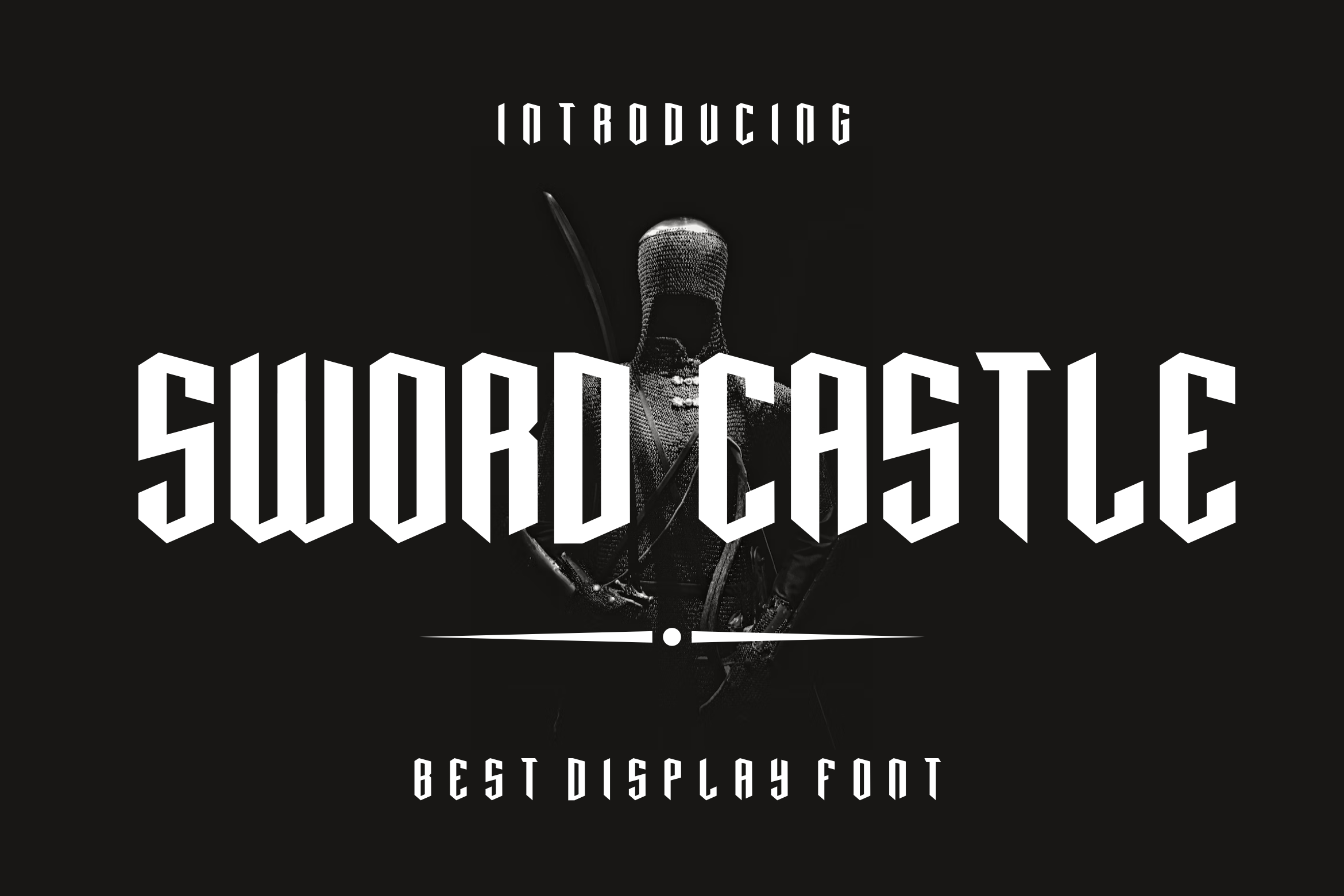
Sword Castle Font
Presenting our new product Sword Castle Font - Modern Font is a bold and authentic display font. This font is perfect for any branding project such as logos, t-shirt printing, creative products, and more. extraordinary in a variety of contexts.